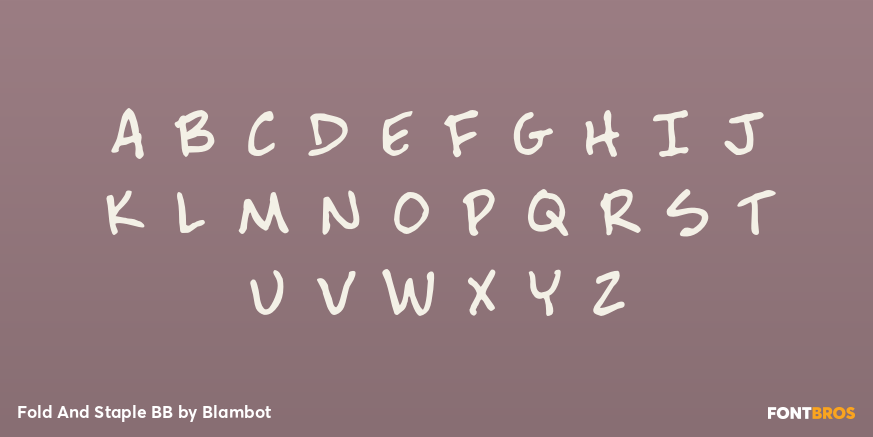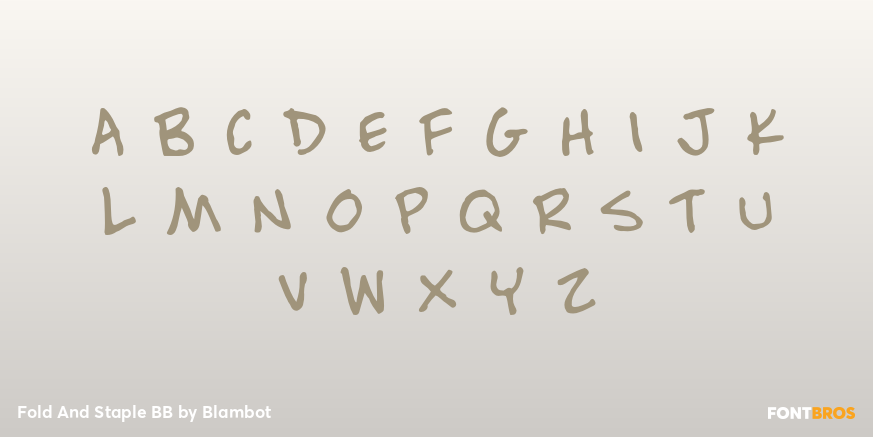
Fold And Staple BB
Buy NowIndependent comic artist, Brandon J. Carr and Blambot.com has teamed up to bring you the coolest underground comic book font this side of the copy shop!
FOLD & STAPLE comes with Regular, Italic and Bold. It has a plethora of European characters and the Opentype version has autoligatures!